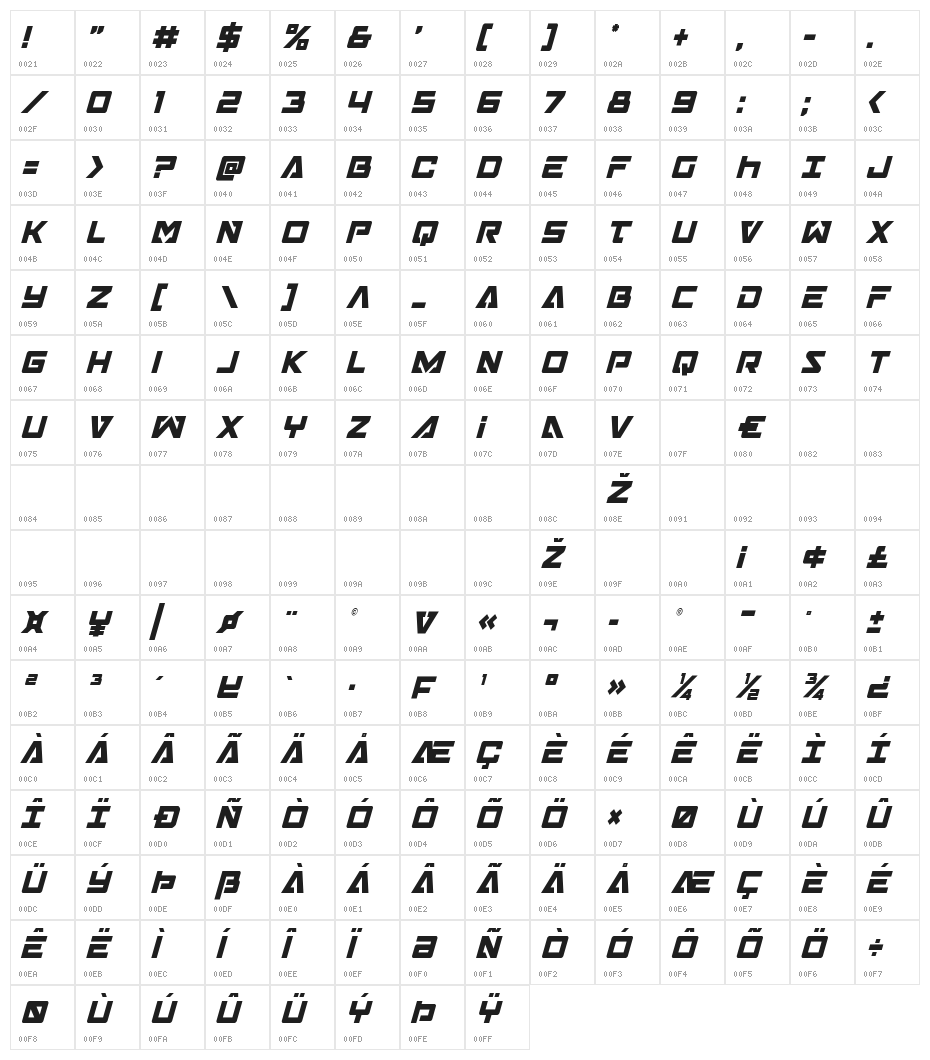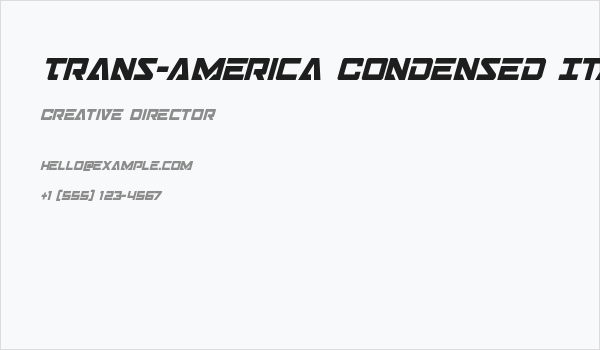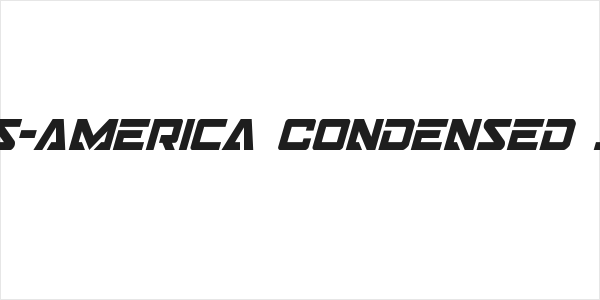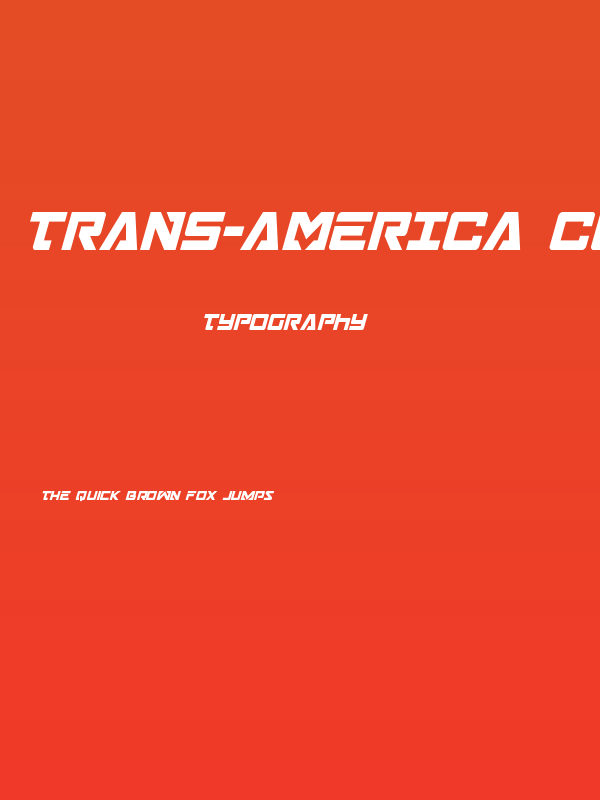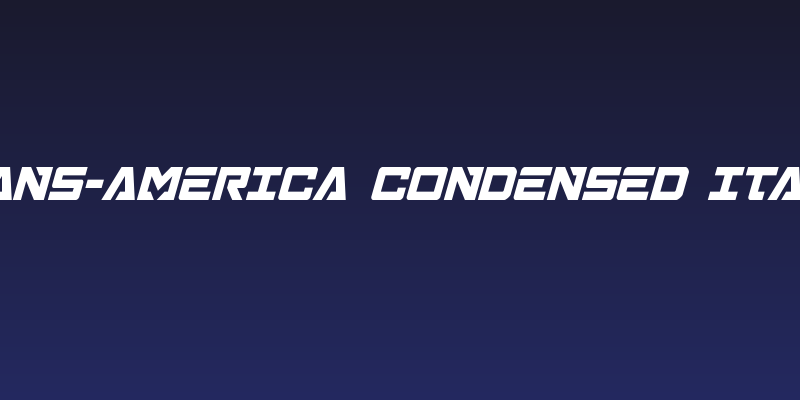
Trans-America Condensed Italic Font
Trans-America Condensed Italic Description
This font features a bold, italicized style with a distinctly modern and futuristic appearance. The characters are condensed, giving them a compact look that enhances their dynamic and energetic feel. The angular design of the letters, combined with the italic slant, creates a sense of motion and speed. The uppercase and lowercase letters maintain a consistent style, with sharp edges and geometric shapes. The numerals and special characters follow the same design principles, ensuring uniformity across all glyphs. This font is ideal for projects that require a strong, impactful visual presence.
| Use Case | Logos, Headlines |
| Proposed Projects | Ideal for branding, sports team logos, automotive design, and tech-related projects. |